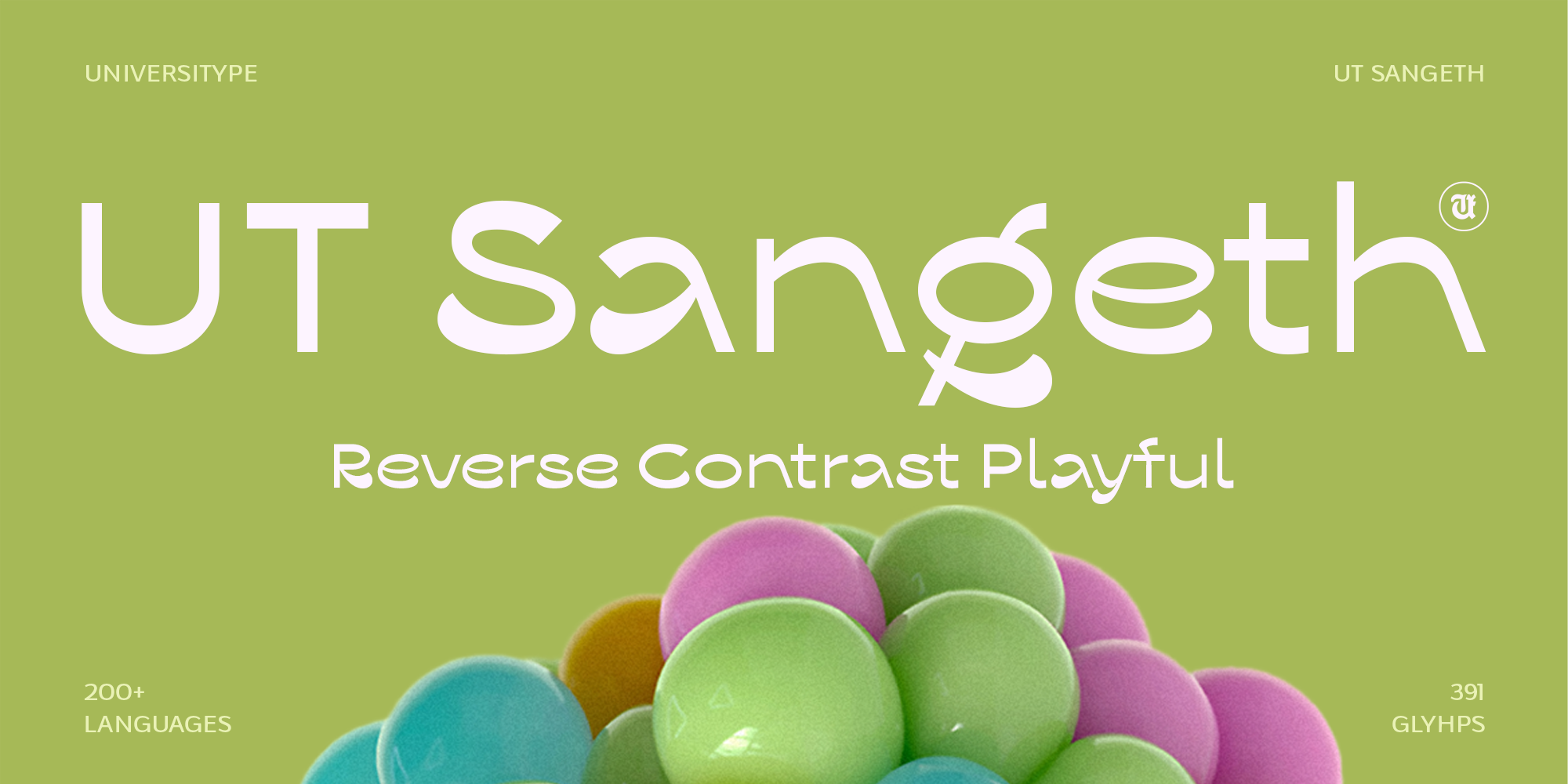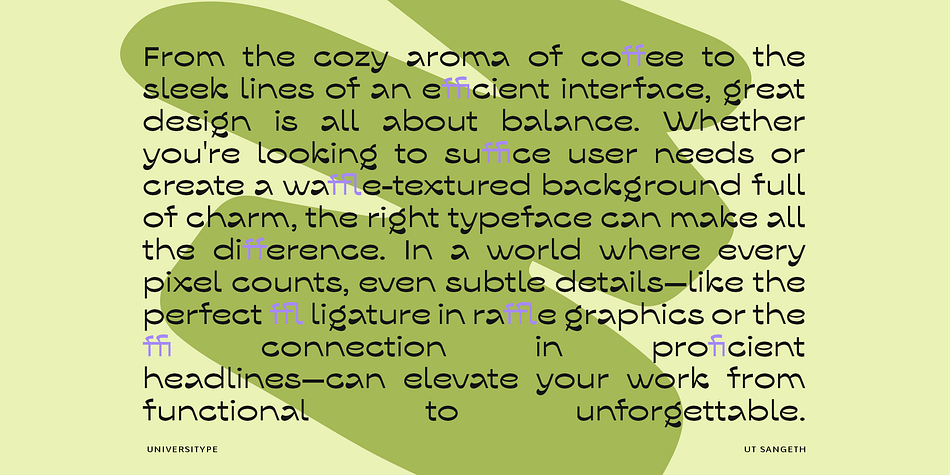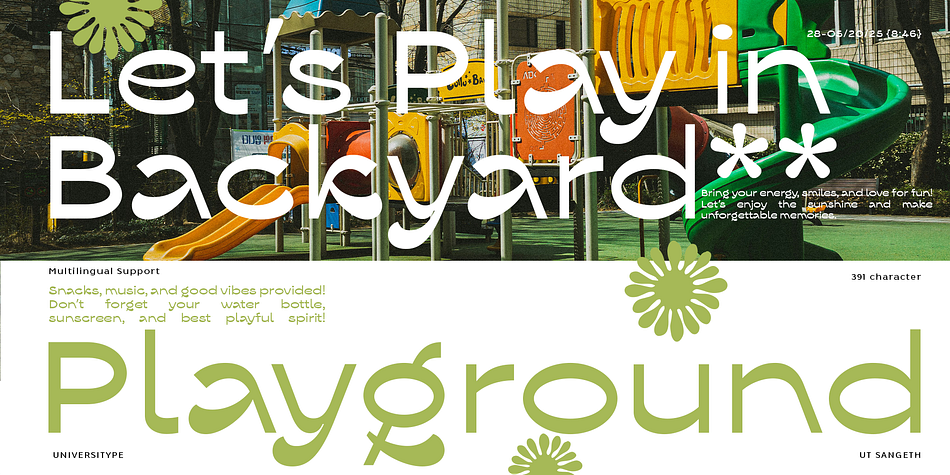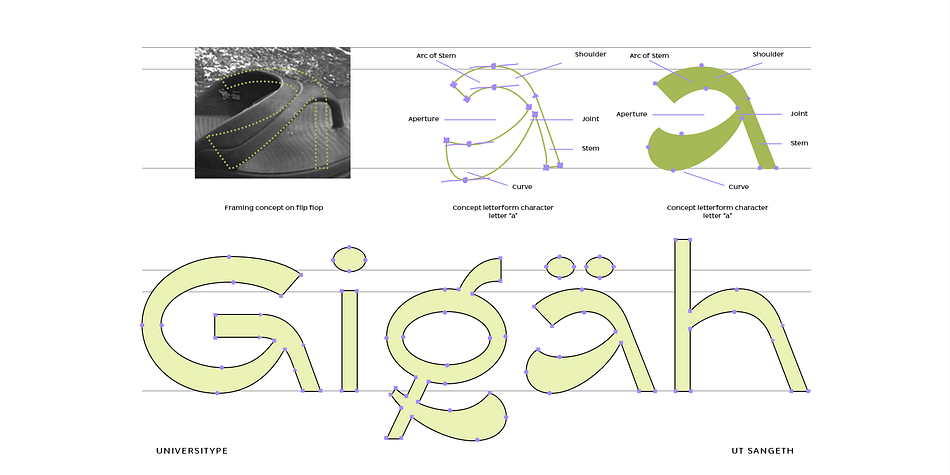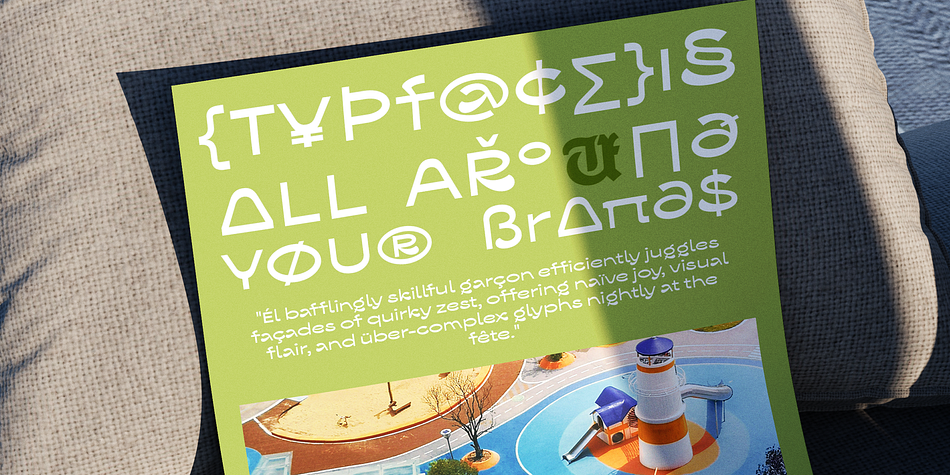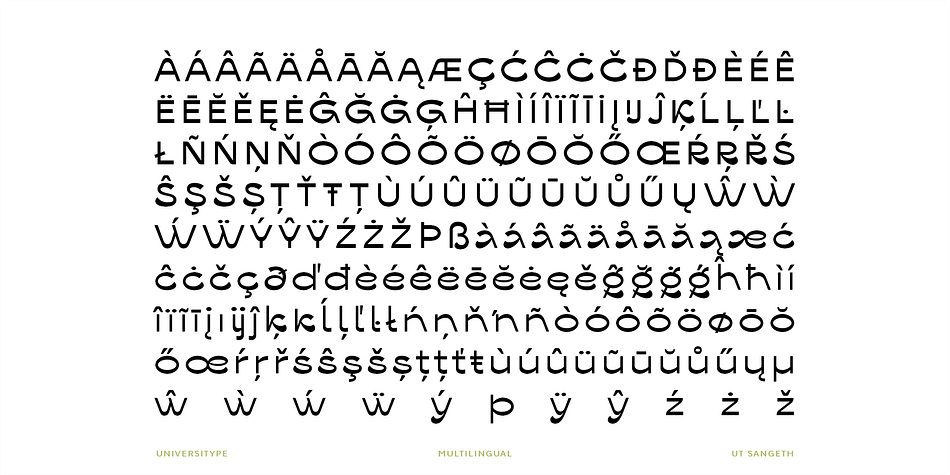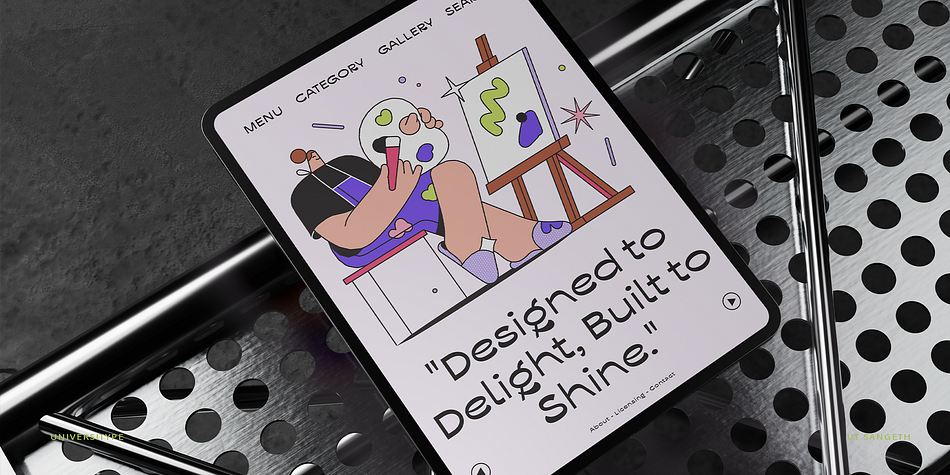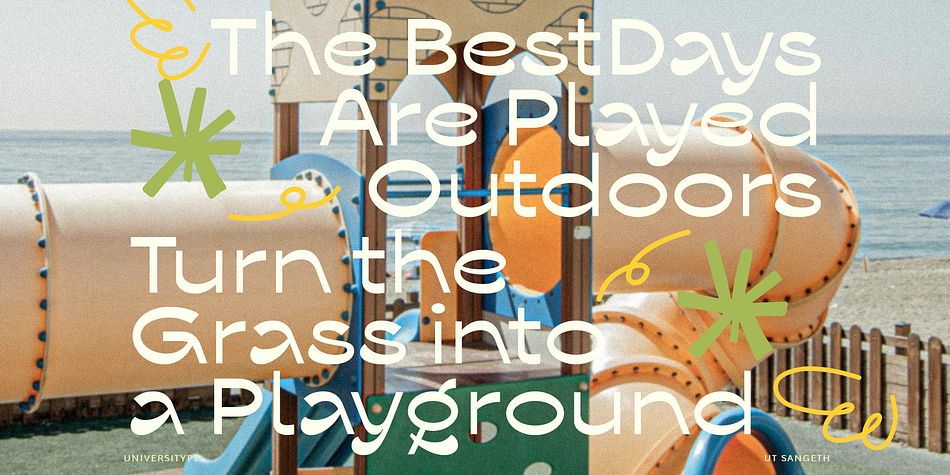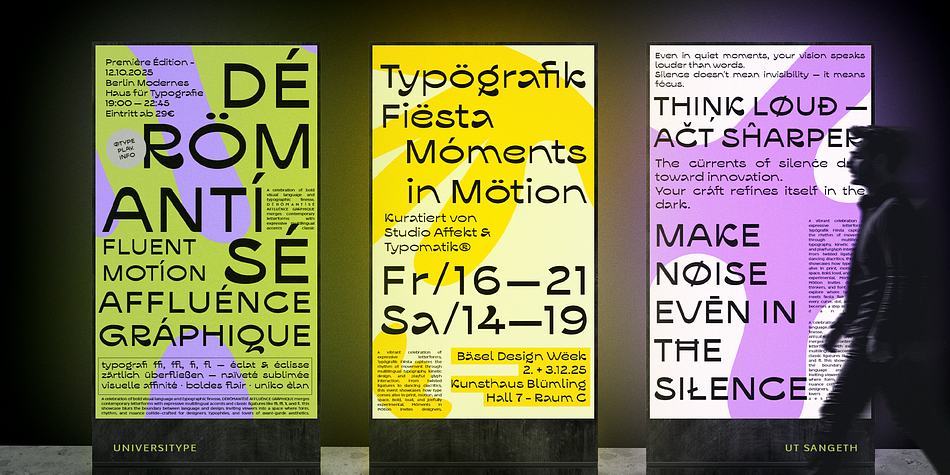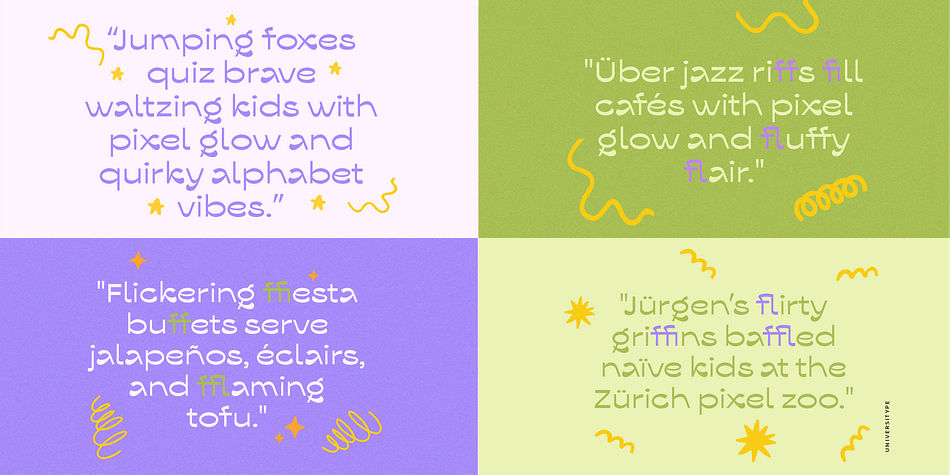
UT Sangeth is a modern, playful display typeface with a distinctively rounded, soft geometric structure and quirky character details. It combines a childlike whimsy with a clean, futuristic edge, making it both approachable and stylish. Perfect for grabbing attention and adding a unique personality to your designs.
Key Features:
- Reverse Contrast Design: Unique stroke variations create a captivating visual rhythm.
- Playful & Modern Aesthetic: Combines a sense of fun with contemporary design sensibilities.
- Rounded Geometric Structure: Soft, approachable forms for a friendly feel.
- Quirky Character Details: Unexpected elements add charm and individuality.
- Extensive Language Support: Supports over 200 languages for global reach.
- 391 Glyphs: A comprehensive set of characters for diverse design needs, including ligatures (e.g., “ffi”, “ffl”).
- Versatile Application: Ideal for headlines, branding, posters, digital interfaces, and more.
Target Audience:
Graphic designers, branding agencies, marketing professionals, web designers, app developers, and anyone looking for a distinctive and playful font to make their designs stand out. Especially suited for projects targeting creative, youthful, or innovative audiences.
Inspiration Behind the Design:
The inspiration for UT Sangeth stems from a desire to blend the unexpected with the familiar. We explored the concept of “reverse contrast” to create visual intrigue, while ensuring the letterforms remained friendly and inviting. The rounded shapes and quirky details were inspired by a sense of childlike wonder and the desire to infuse a playful spirit into typography. The design process was deeply rooted in meticulous observation and conceptualization. For instance, the “framing concept on a flip flop” was a direct influence on the construction of the letterforms, particularly in how the curves and joints of characters like the lowercase ‘a’ were developed. This approach allowed us to translate the organic flow and structural integrity observed in everyday objects into the unique visual language of UT Sangeth. The visual exploration of elements like the “Arc of Stem,” “Shoulder,” “Aperture,” “Joint,” “Stem,” and “Curve” seen in the conceptualization of the letter ‘a’ demonstrates the detailed attention given to every aspect of the typeface’s anatomy.
- Design Characteristics: Features distinct apertures, shoulders, joints, stems, and curves, meticulously crafted for optimal visual appeal and readability.